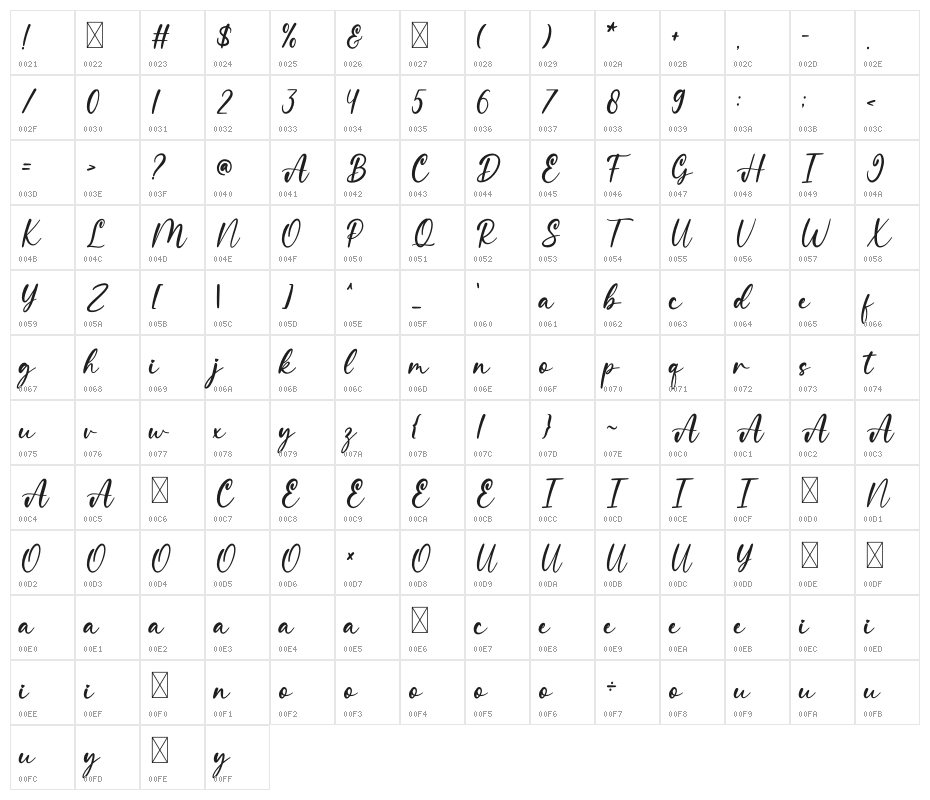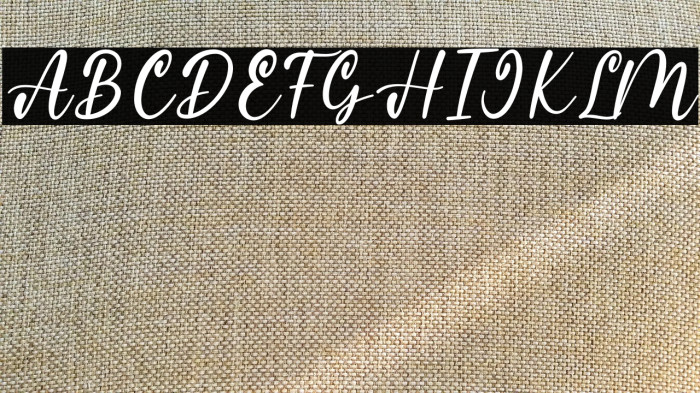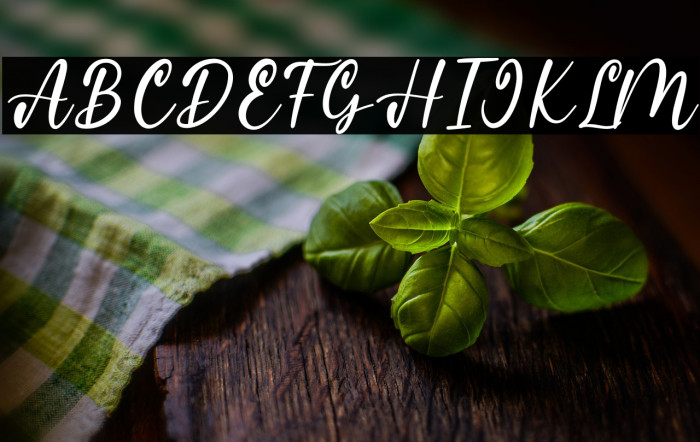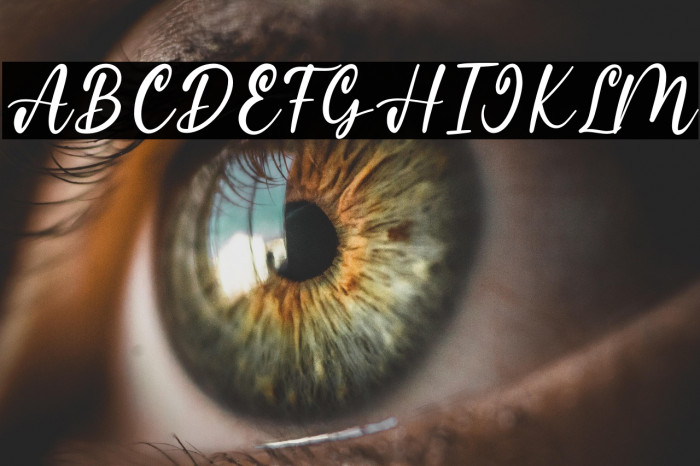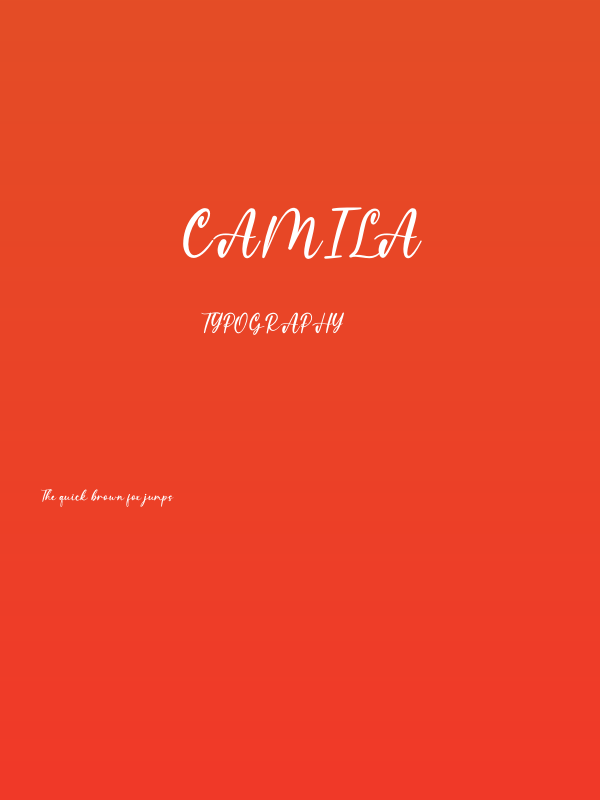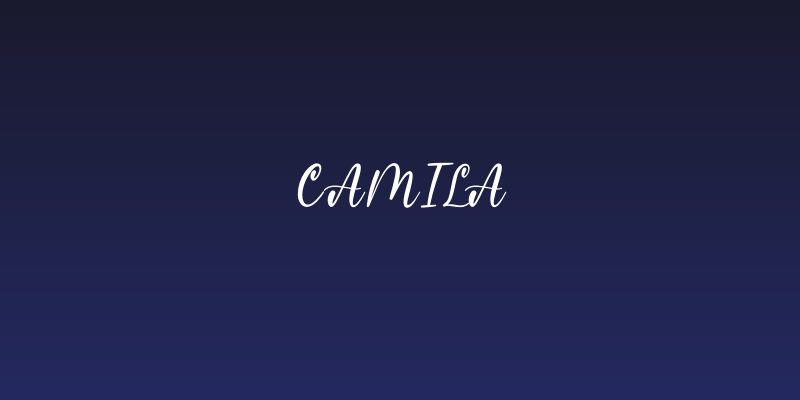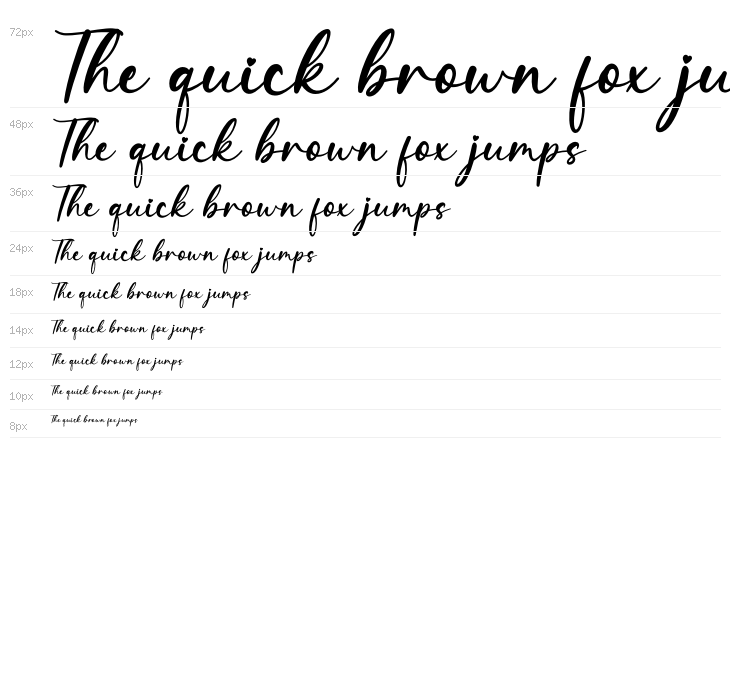
Camila Font
Camila Description
This font features a stylish, cursive script with elegant, flowing lines that give it a sophisticated and artistic appearance. The uppercase letters are bold and slightly slanted, while the lowercase letters maintain a consistent flow, enhancing readability. The numerals are distinct, with a slight slant that complements the overall script style. Special characters are designed with the same fluidity, ensuring a cohesive look across all text. This font's smooth curves and balanced proportions make it suitable for a variety of design applications.